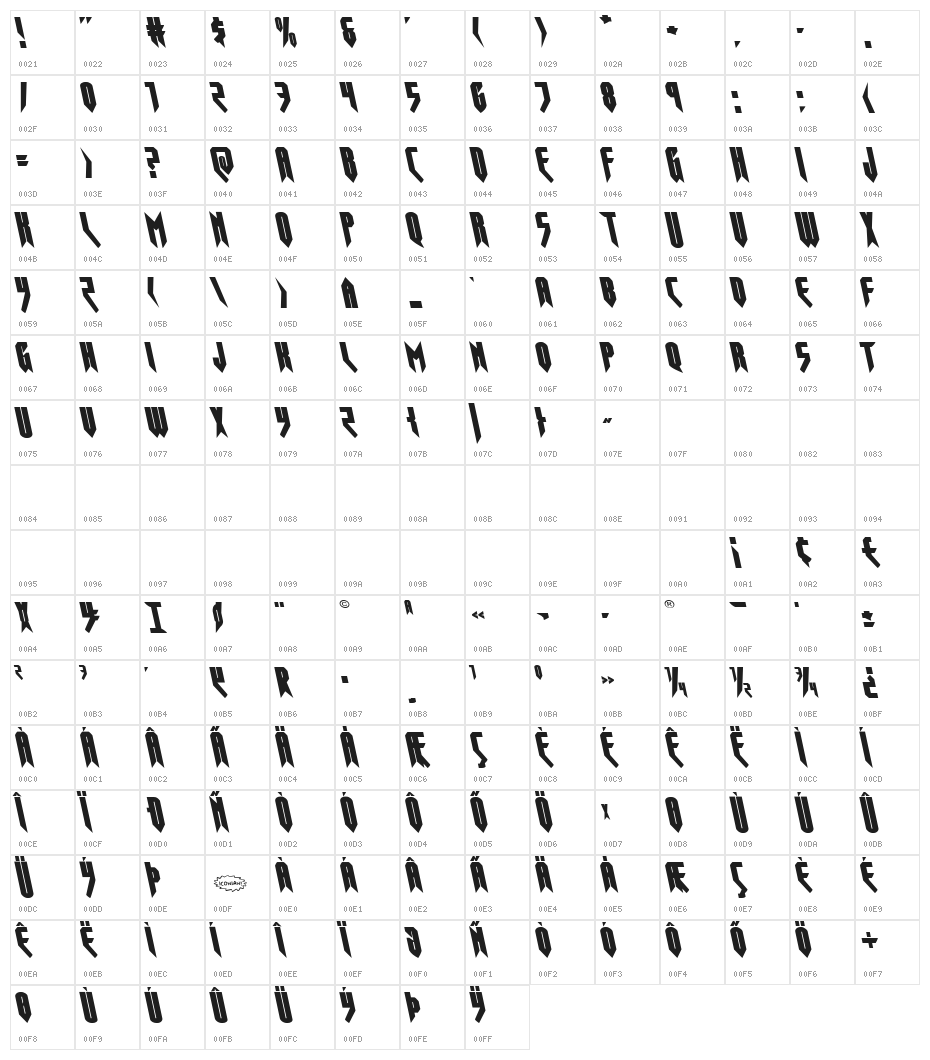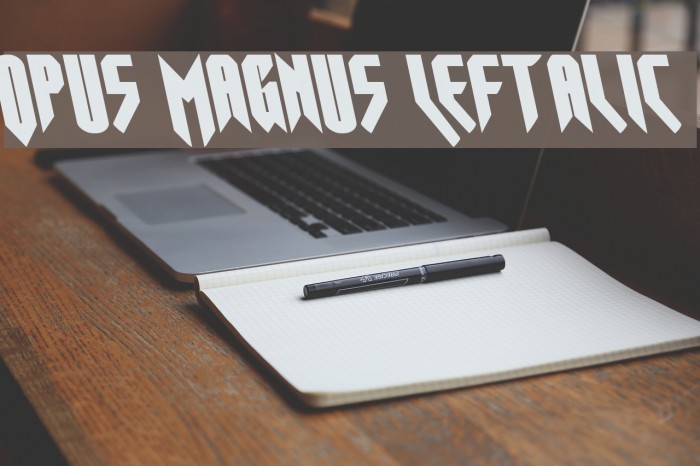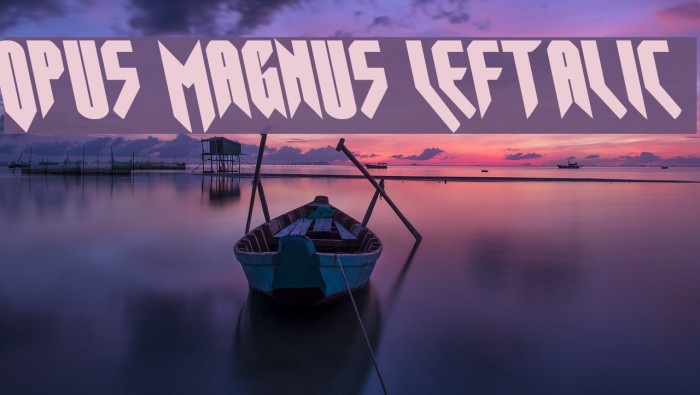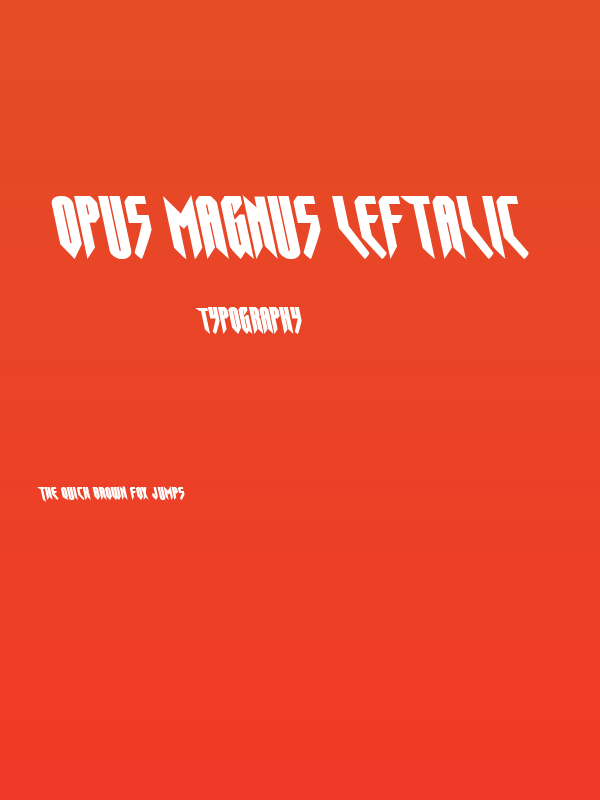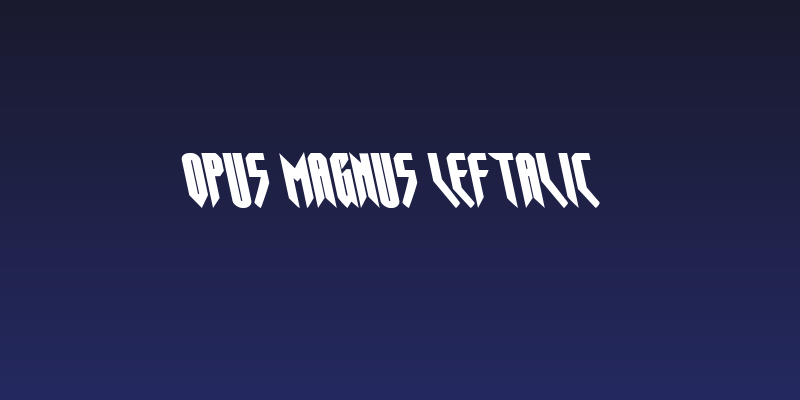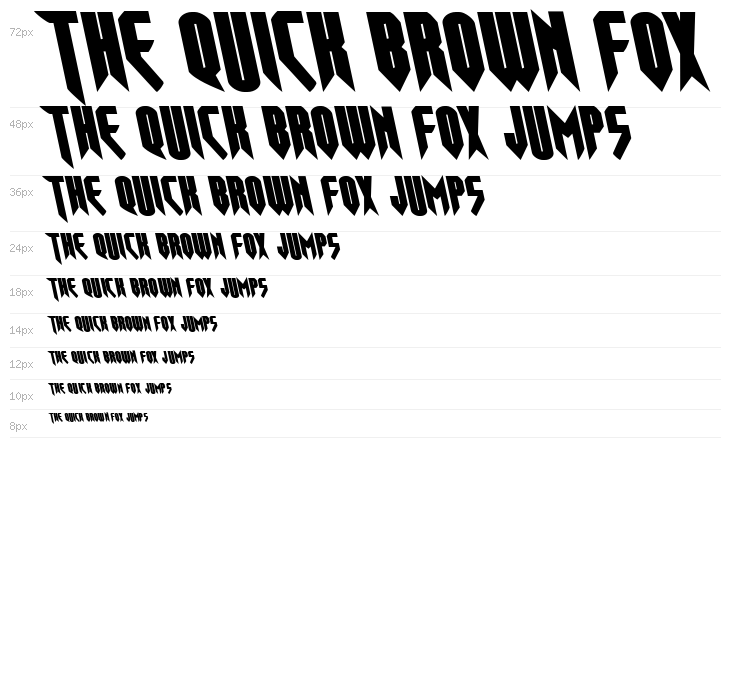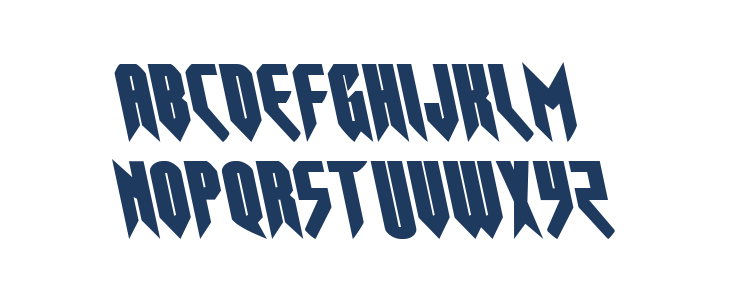
Opus Magnus Leftalic Font
Opus Magnus Leftalic Description
This font features a bold and angular design with a strong geometric influence. The characters are sharply cut, creating a dynamic and aggressive appearance. The slanted orientation adds a sense of motion and energy, making it stand out as a display typeface. Its unique style is characterized by thick strokes and sharp edges, giving it a futuristic and edgy look. The uppercase and lowercase letters maintain a consistent style, while the numerals and special characters complement the overall aesthetic. This font is ideal for projects that require a bold statement and a modern, cutting-edge feel.
| Proposed Projects | Ideal for posters, album covers, video game titles, and branding that requires a strong, modern impact. |